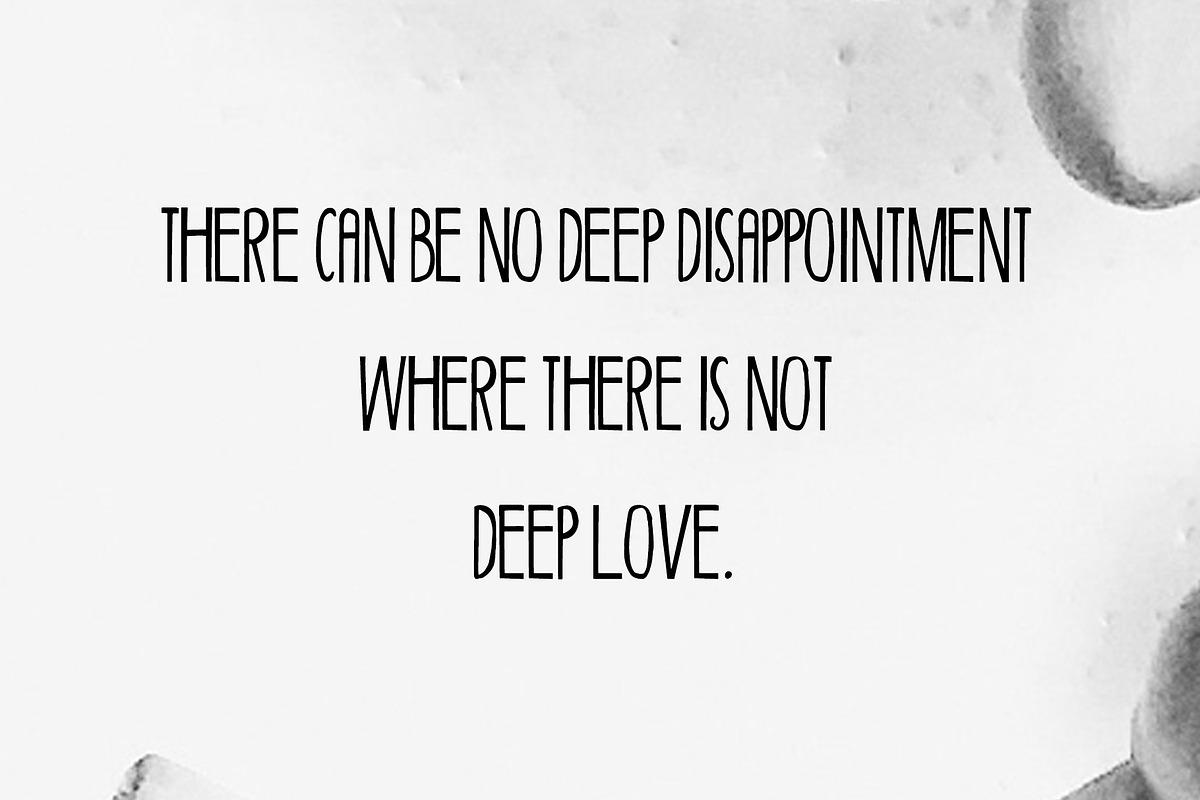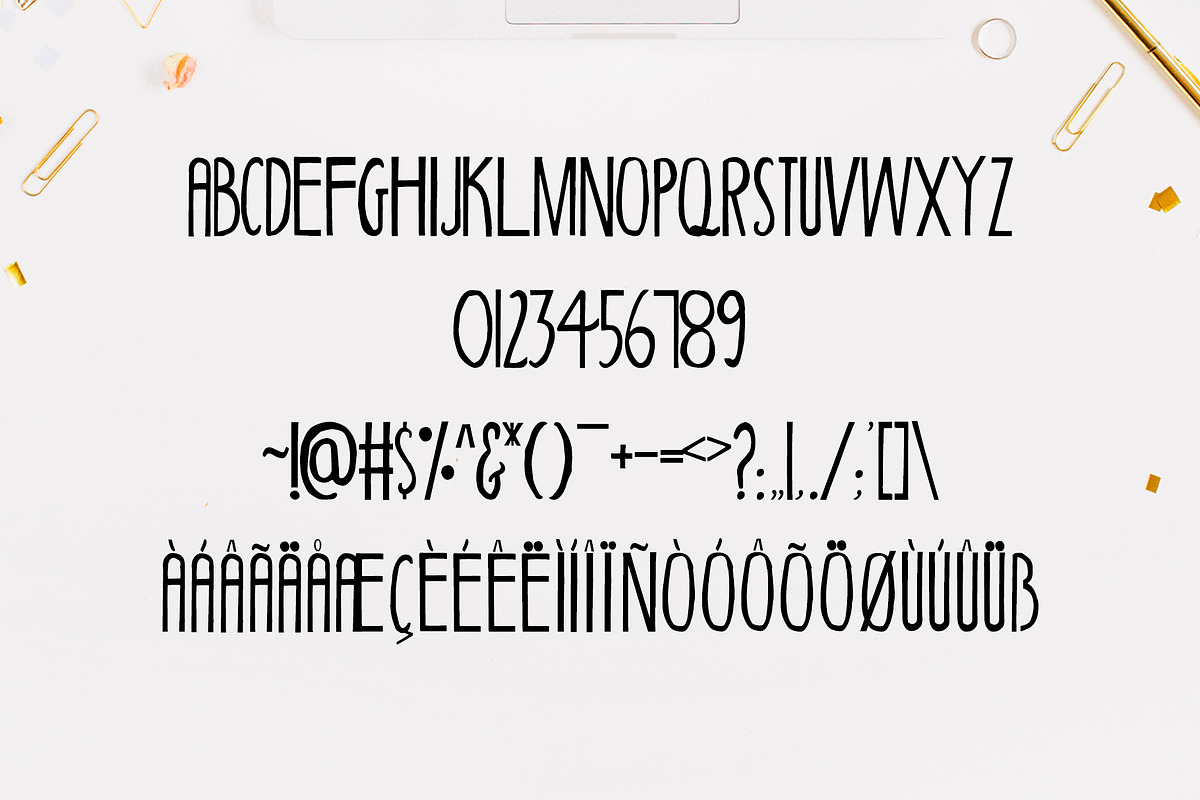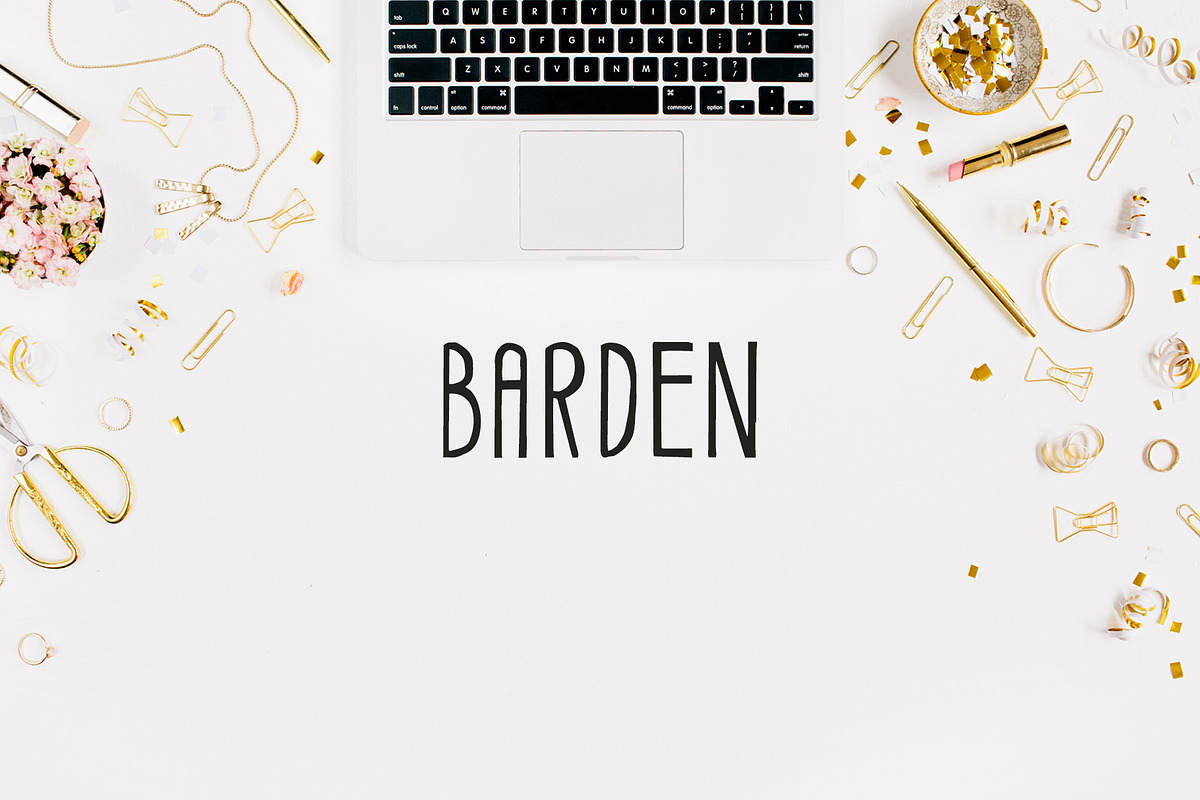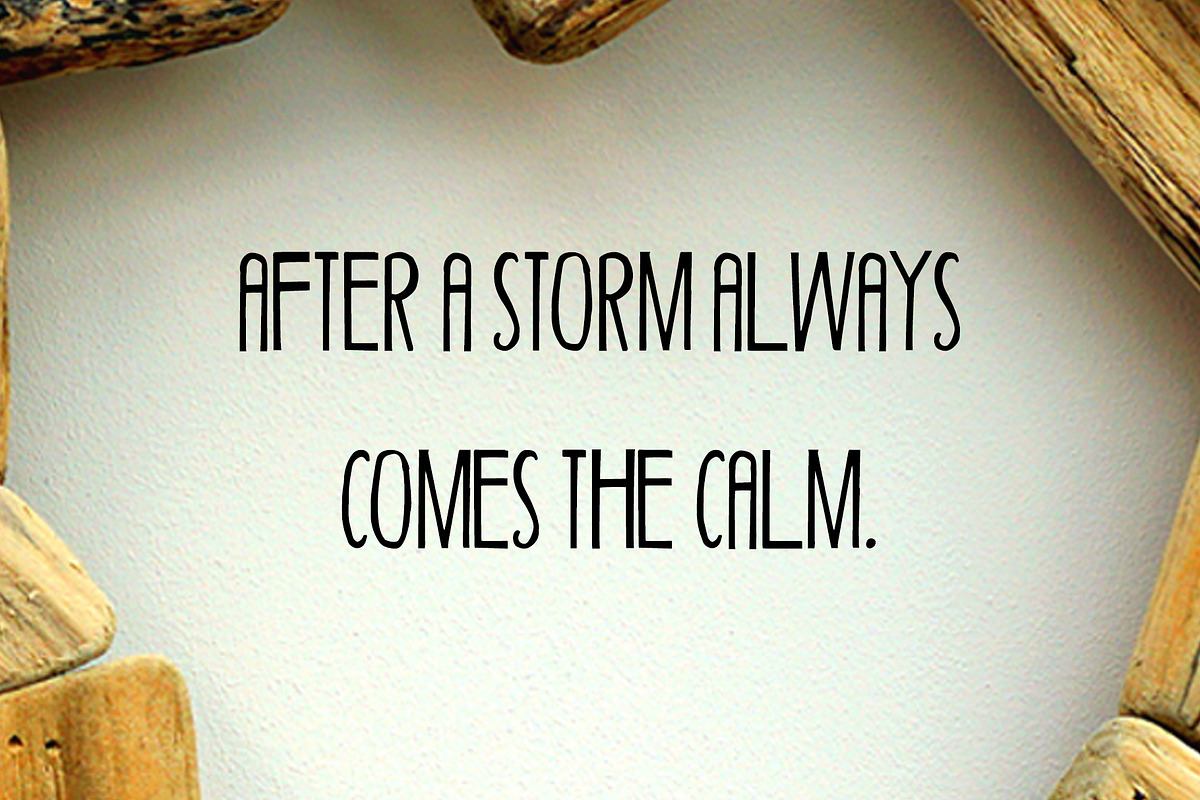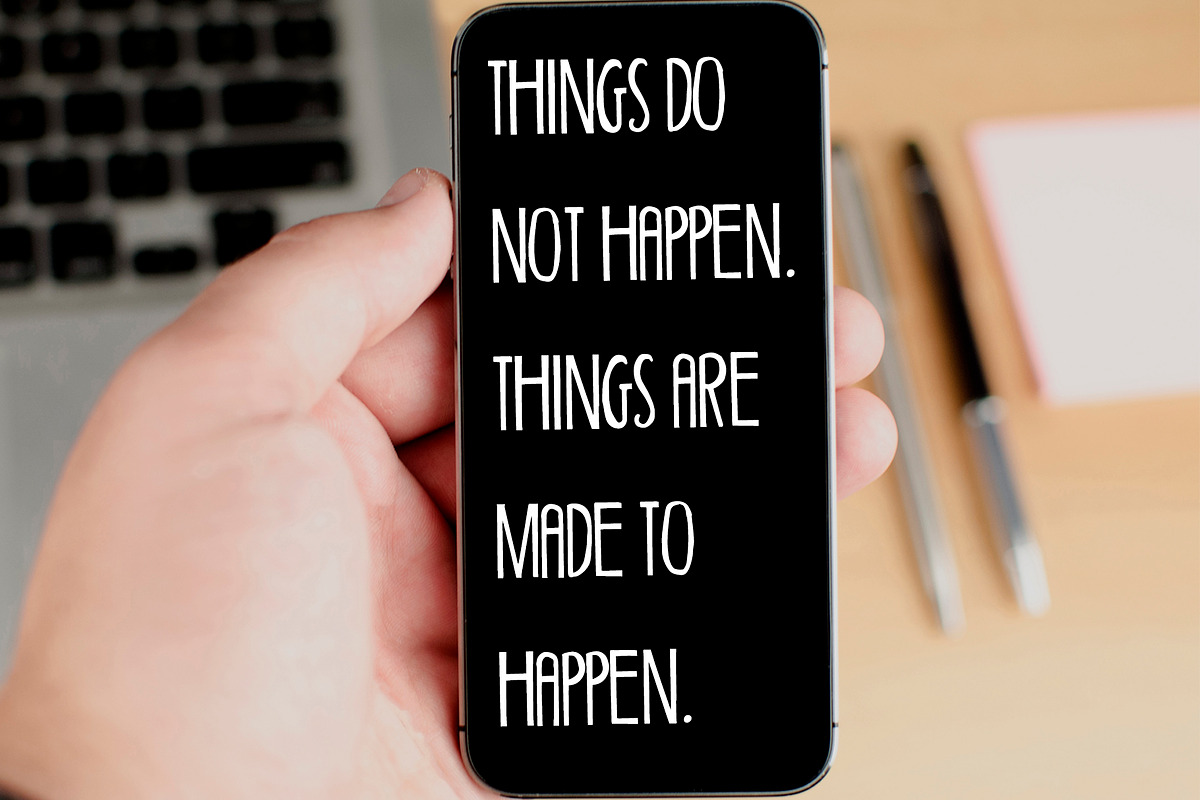
Barden Handmade Font
Barden A Handmade Font it's a wonderful font design with a unique, detailed and handmade look. It looks impressive for branding, websites, designs, headlines, banners, posters, printings, T-shirts, logos, magazines, promotional product, print ads, templates, etc.
It looks gorgeous in all caps with a wide-set spacing if you want to try a classy look, or beautiful on its own in capital and lowercase letters for something completely timeless.
Extras: Uppercase Letters, Lowercase Letters, Numbers, Punctuation and Some Alternatives
Barden Handmade Font by Creativetacos fits naturally into Branding, posters, packaging, typography.